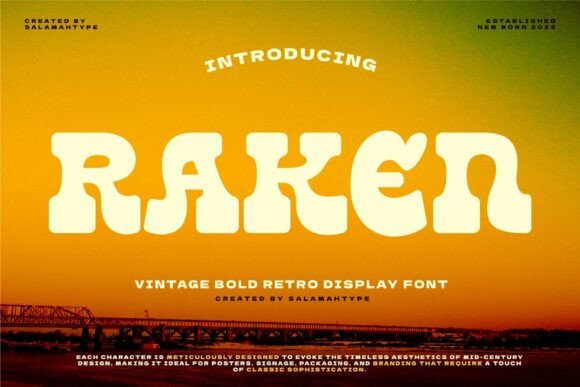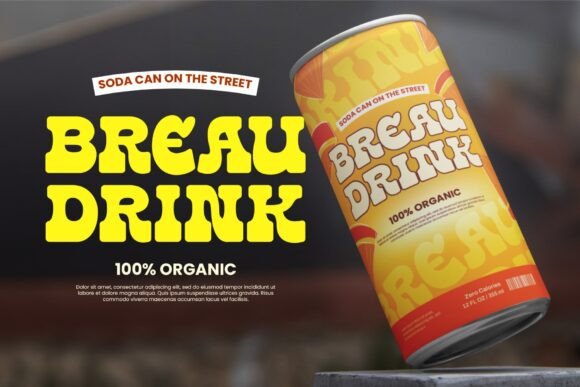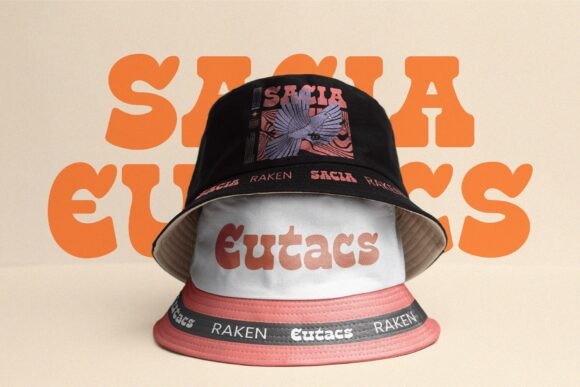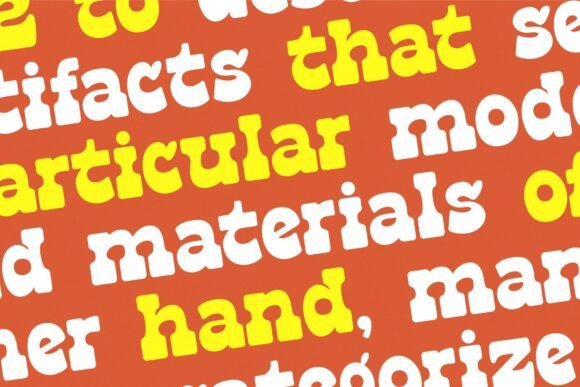
Raken Font: Bold Retro Display Font for Timeless Branding
About the Raken Font
Unleash your creativity with Raken Font, a versatile font perfect for a wide range of applications. Raken is a bold, vintage-style display font designed to make a timeless statement. Its classic yet timeless appeal exudes boldness and sophistication, making it the perfect choice for impactful headlines, logos, branding, posters, and packaging.
With strong letterforms with sharp edges and gentle curves, Raken seamlessly blends vintage aesthetics with contemporary versatility. This font is ideal for projects that demand attention, such as retro-inspired designs, advertising campaigns or merchandise.
Raken Font Example